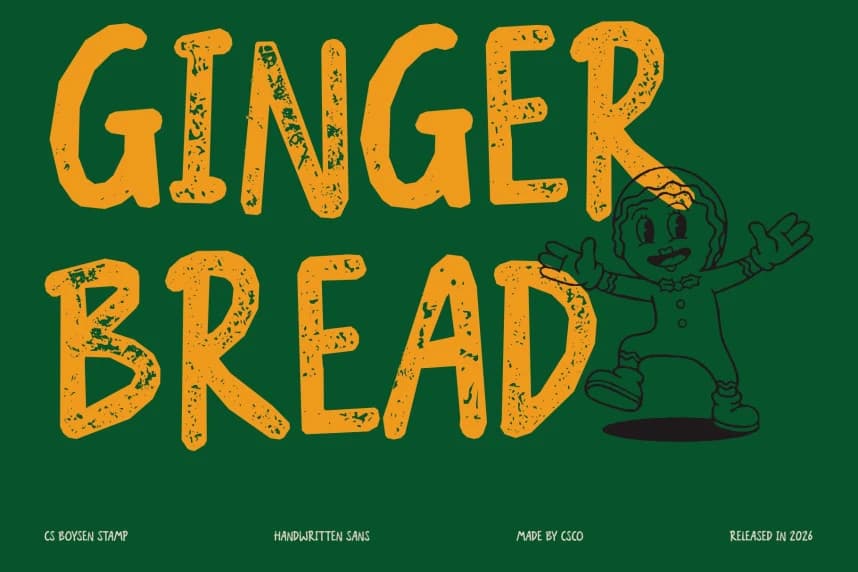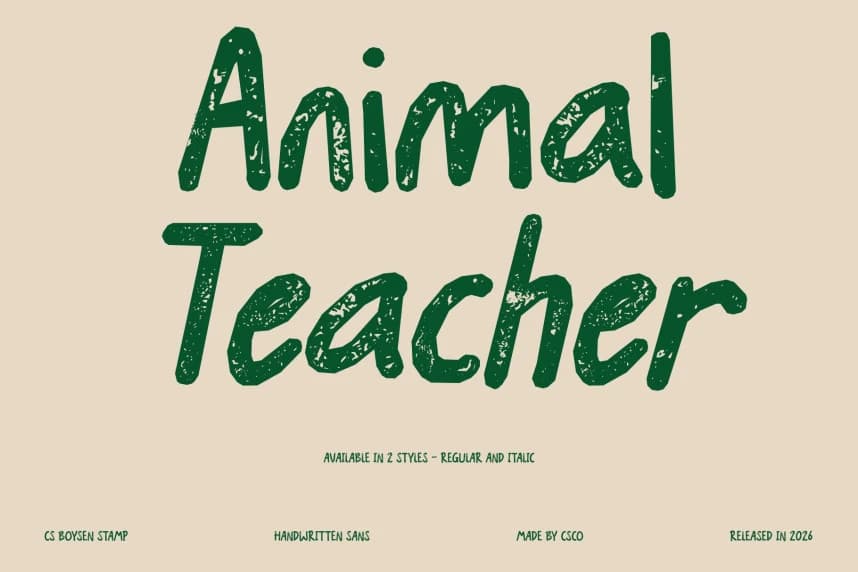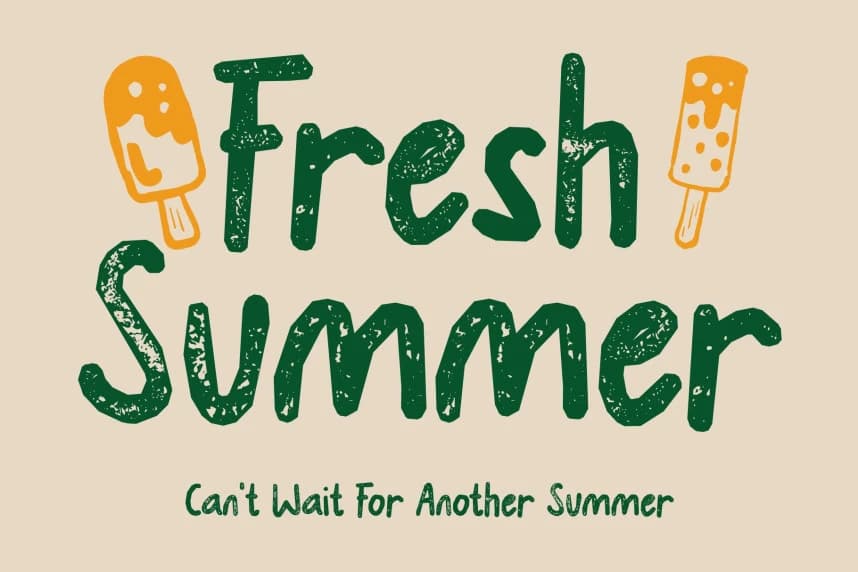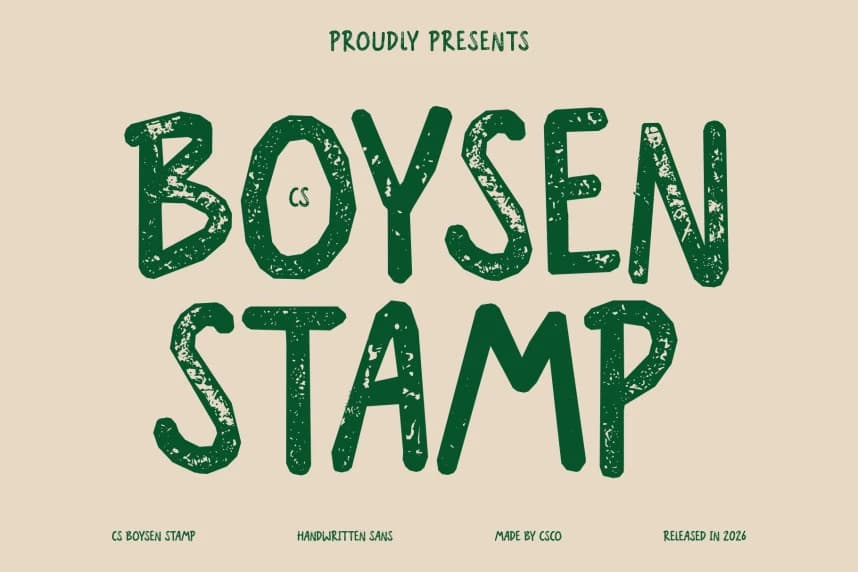
CS Boysen Stamp Font – Joyful Handwriting with Textured Charm Friendly Script with a Stamped Touch This enhances its cheerful handwritten style with a subtle stamped texture that adds warmth and handcrafted appeal.